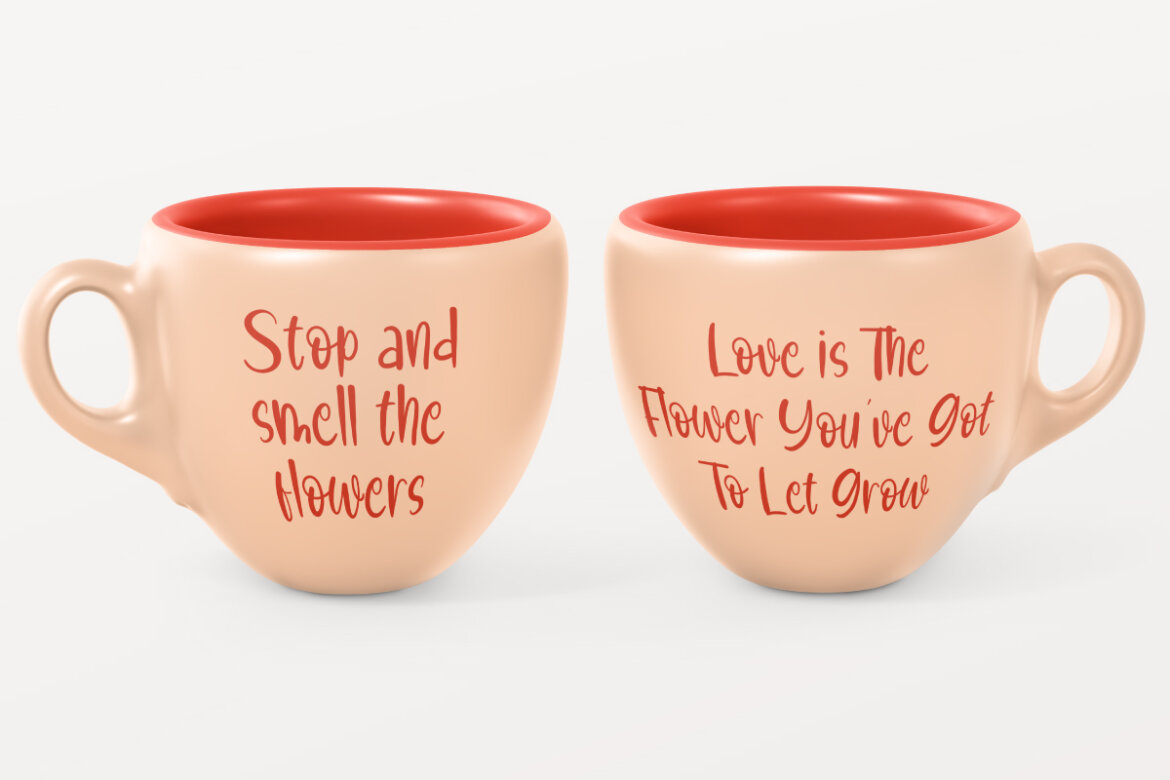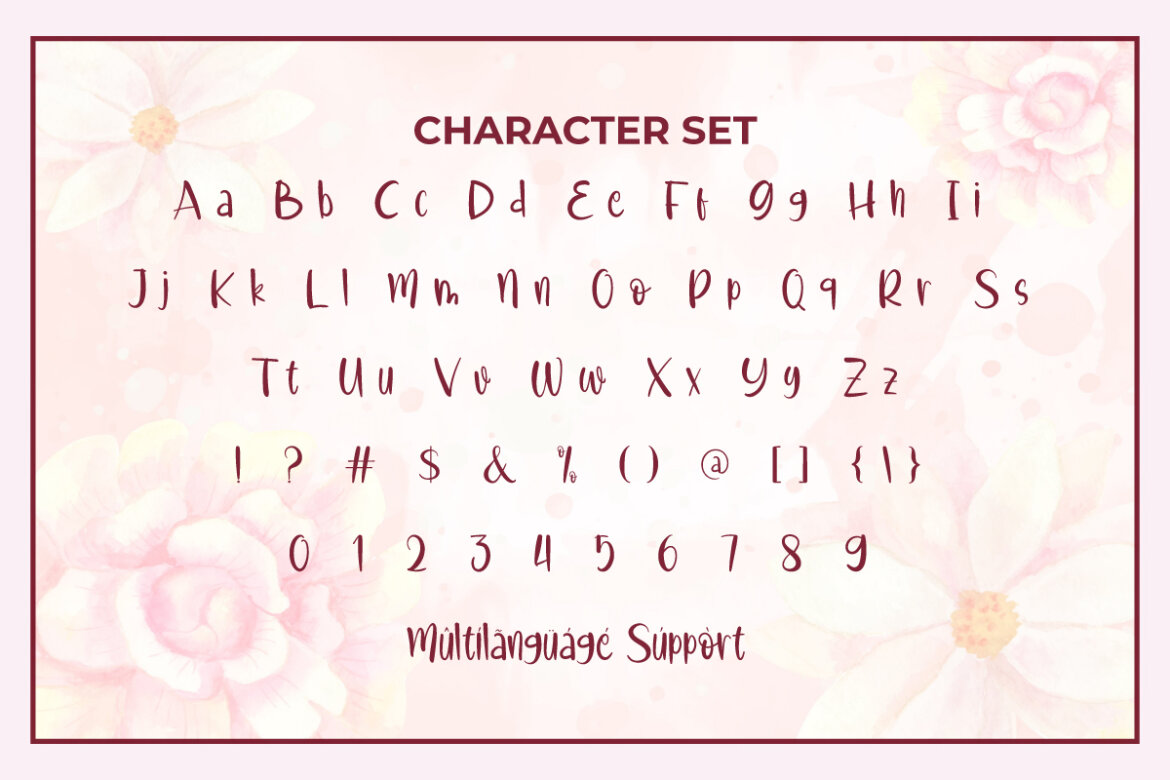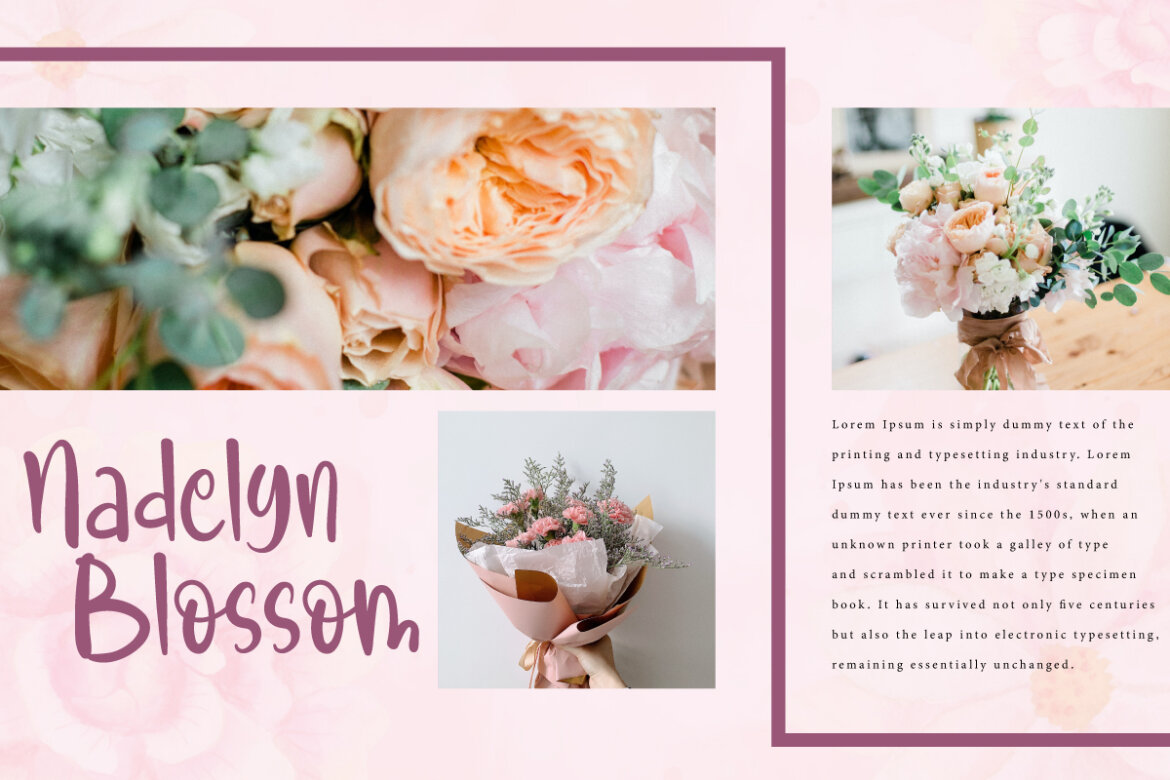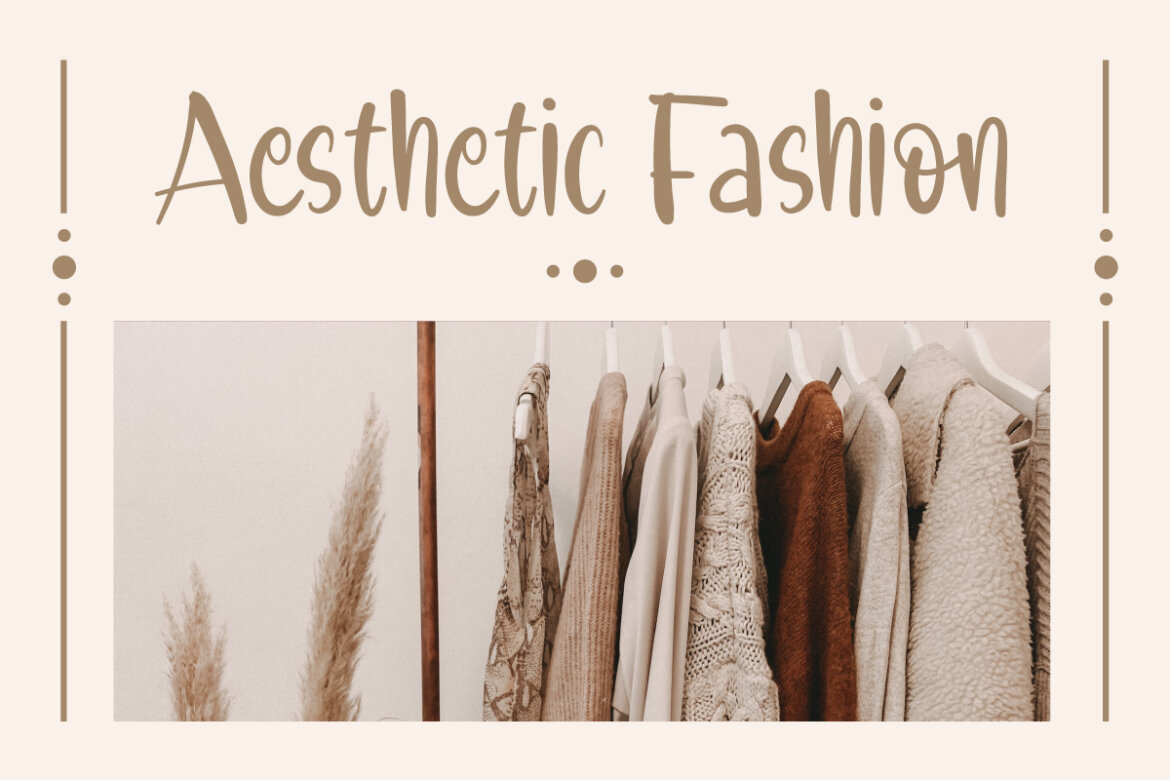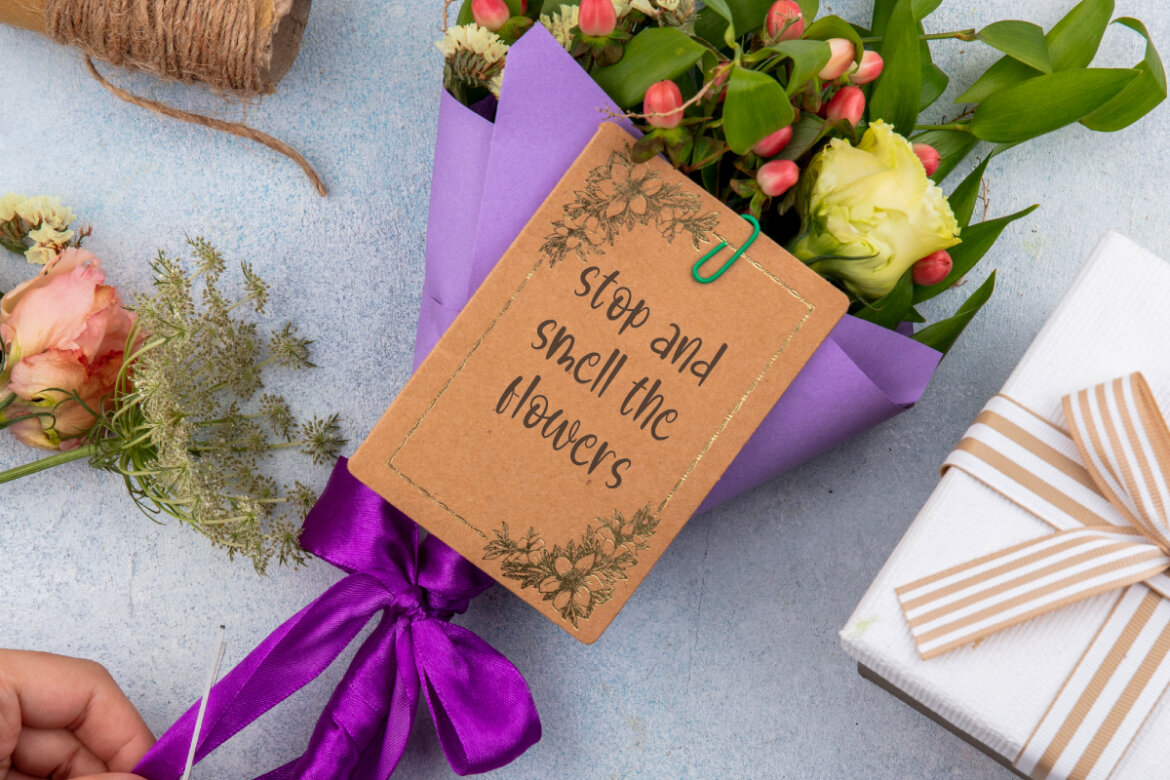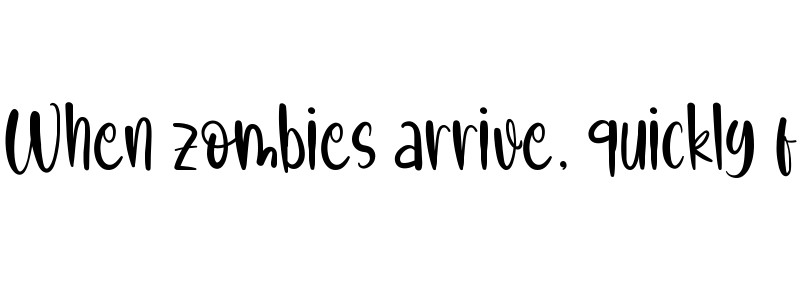
Cranberry Blossom
Cranberry Blossom Font is an awesome display font made with a touch of sweet brush handwritten script style. This font comes with a modern and fun feel. Typography that will give the impression of authentic handmade writing. Ready to use for your project design such as blogs, branding logo, brochure, covers, flyer, headers, invitation cards, magazine, mockup template, pamphlet, photo overlays, quotes, stickers, title, watermarks, websites, and other design project.
Cranberry Blossom Font is absolutely stunning in terms of readability and size. Basically the beautiful ink washes that create the look of this script, are created with great care, full attention to detail. It’s ideal for boutique, clothing brand, crockery, fashion, florist, graphic design, handicraft, jewelry, photography, pottery, restaurant, skincare, spa salon, wedding, and others.
Cranberry Blossom Font comes with a complete set of Uppercase and Lowercase Basic Characters, Number, a large range of Punctuation, and Symbol. It is supported with multilingual characters and ready to use both on Windows machine or Mac with simple installations. It’s tested to work well in the Adobe Apps (Illustrator, Adobe InDesign, Adobe Photoshop) CorelDraw, and others. PUA Encode Characters means you can access all the characters easily – Fully accessible without additional design software.